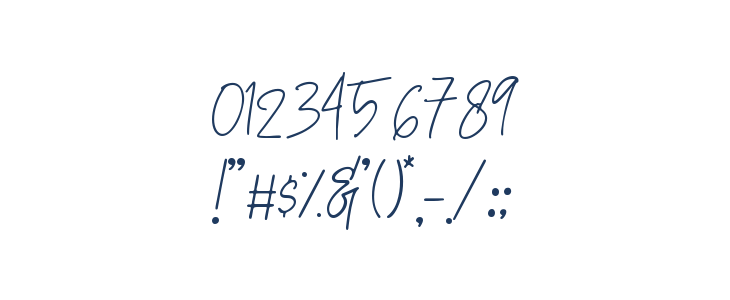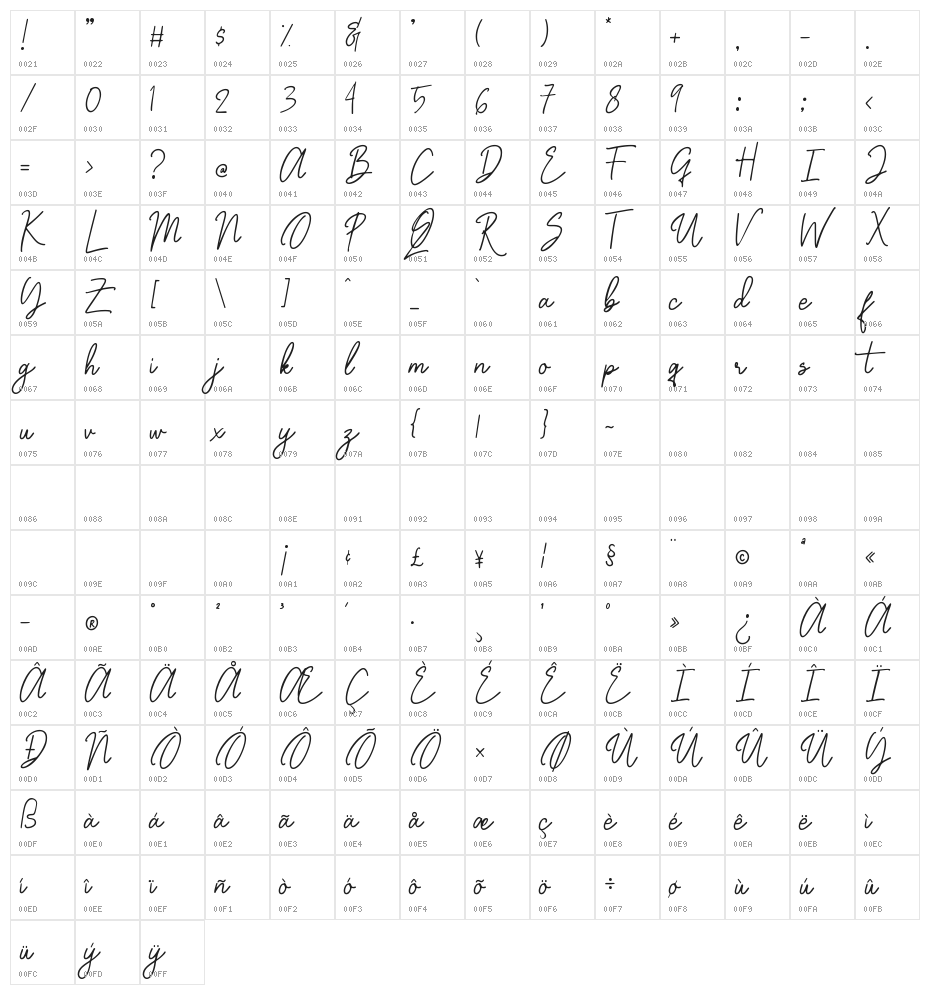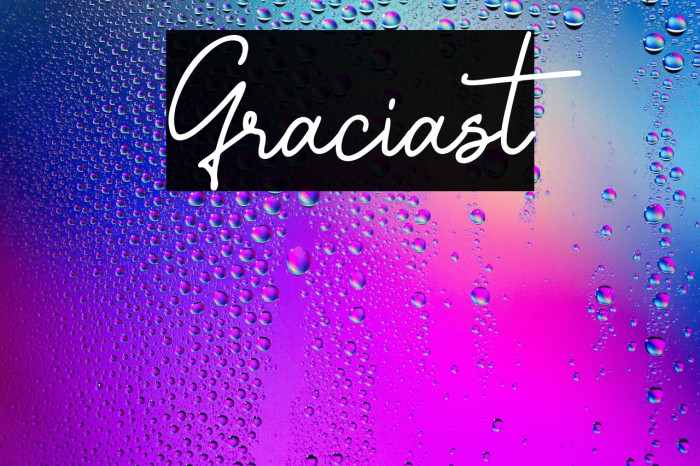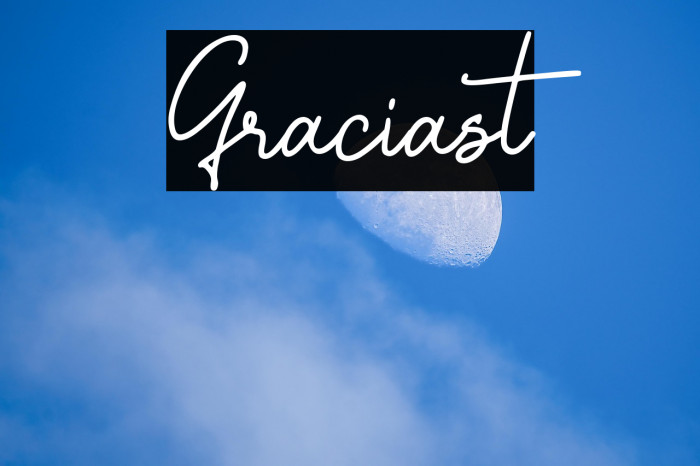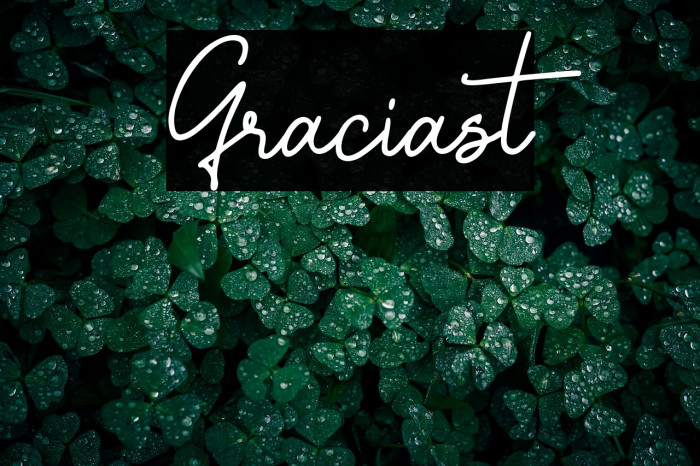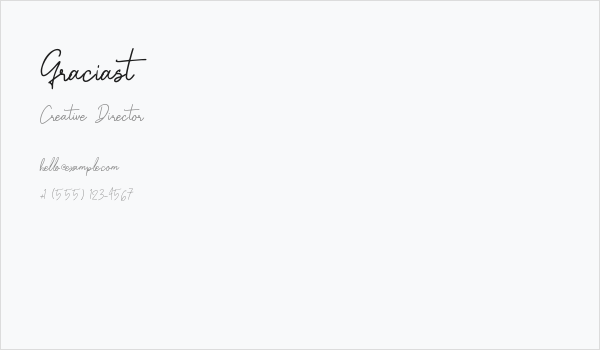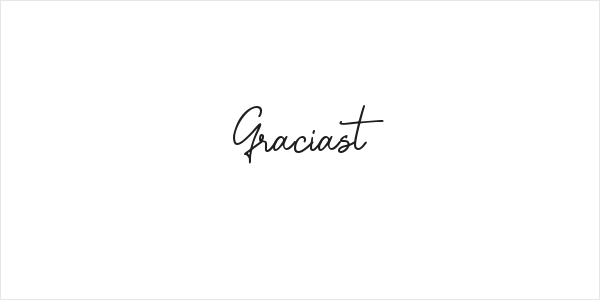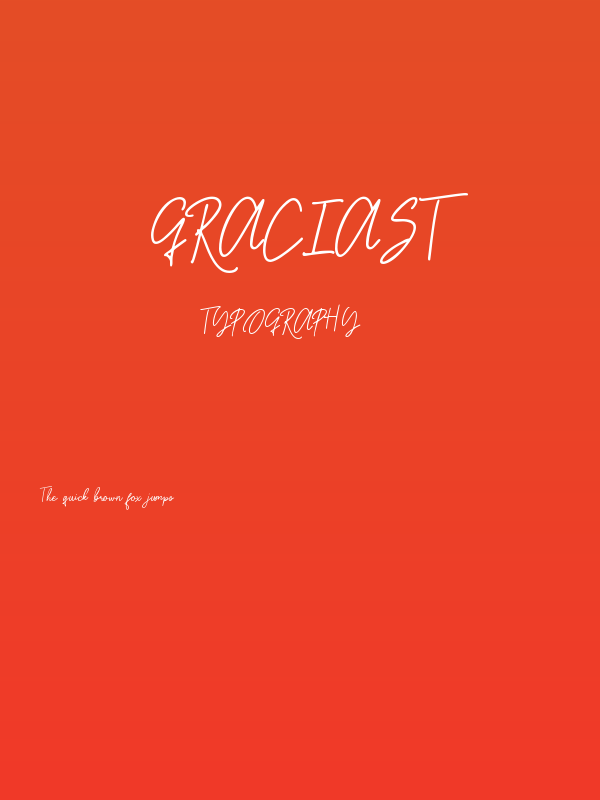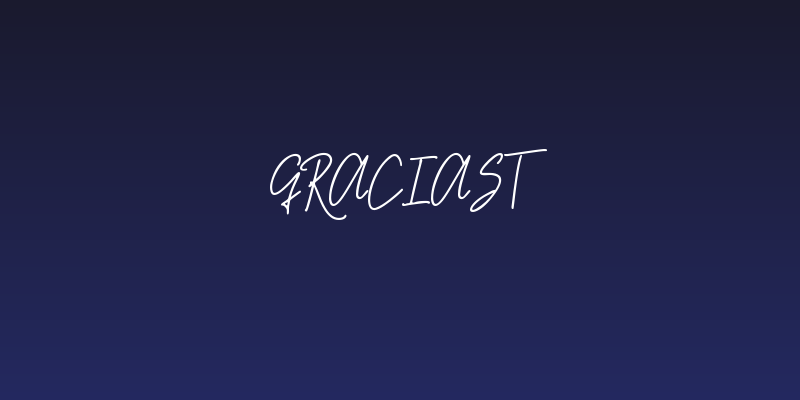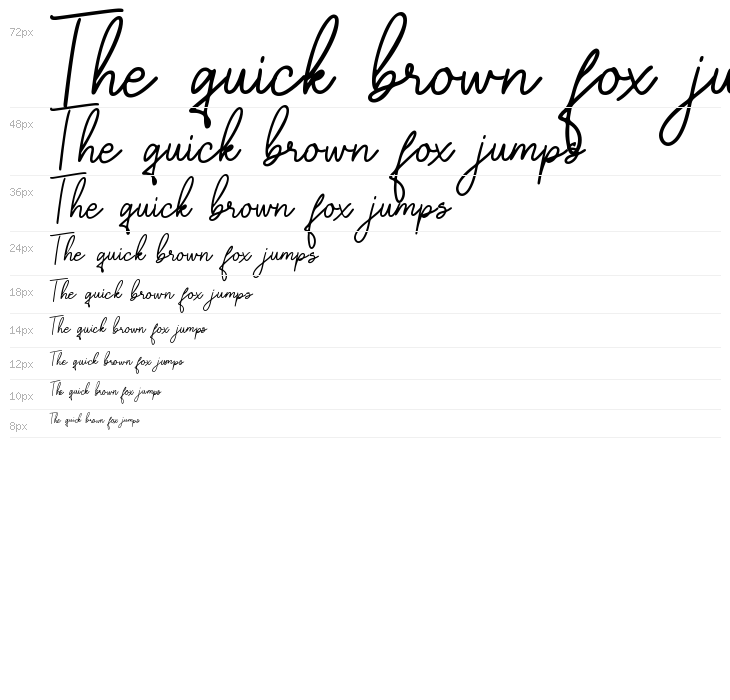
Graciast Font
Graciast Description
This font features a dynamic and fluid handwritten style, characterized by its elegant and flowing script. The uppercase letters are slightly more structured, maintaining a consistent height, while the lowercase letters exhibit a more playful and varied form. The numbers and special characters follow the same fluid aesthetic, ensuring a cohesive look across all glyphs. The strokes are smooth and continuous, giving the font a natural and authentic handwritten feel. This style is perfect for adding a personal touch to any project, with its graceful curves and balanced proportions.
| Overall Style | Elegant, Personal |
| Proposed Projects | Ideal for wedding invitations, personal branding, greeting cards, and any project requiring a personal, elegant touch. |